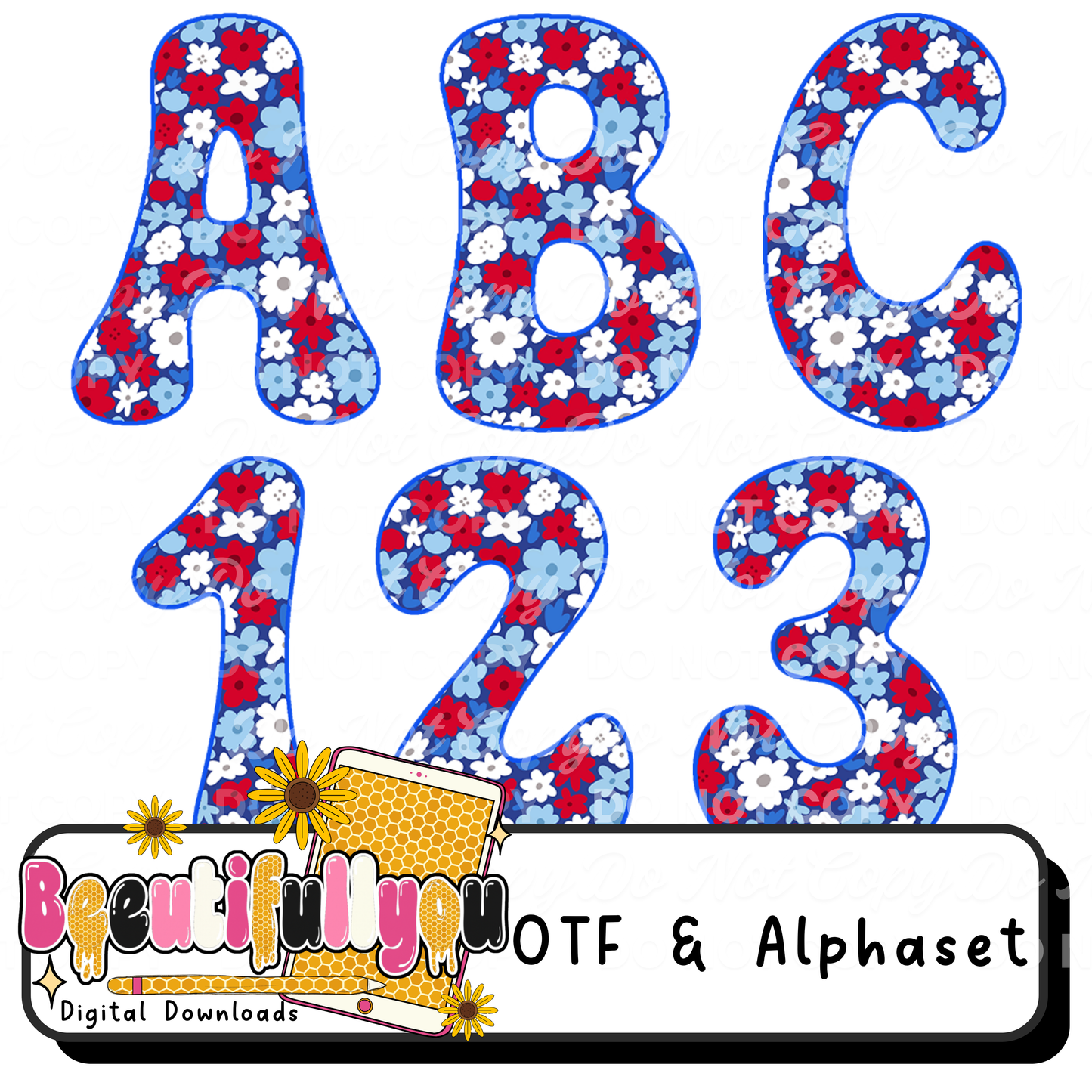
Patriotic Floral Font OTF | 4th of July Alphabet | Red White Blue Flower Font | USA Retro Bubble Letters | Summer Sublimation Font
🇺🇸🌸 The perfect mix of patriotic + pretty!
This red, white, and blue floral font blends bold summer vibes with soft, trendy flowers—making it PERFECT for boutique-style designs, 4th of July apparel, and all your summer drops.
It’s playful, eye-catching, and super versatile for both kids and adult designs 💙
• Colors/pattern are part of the font style